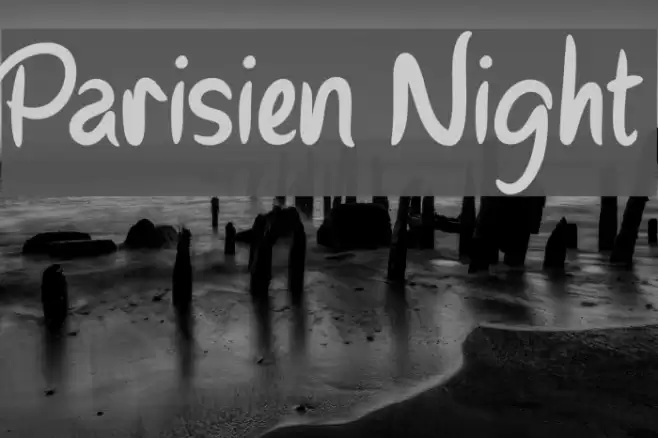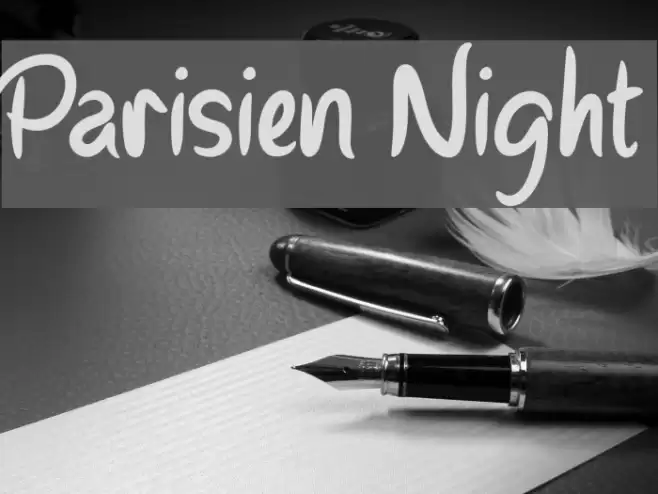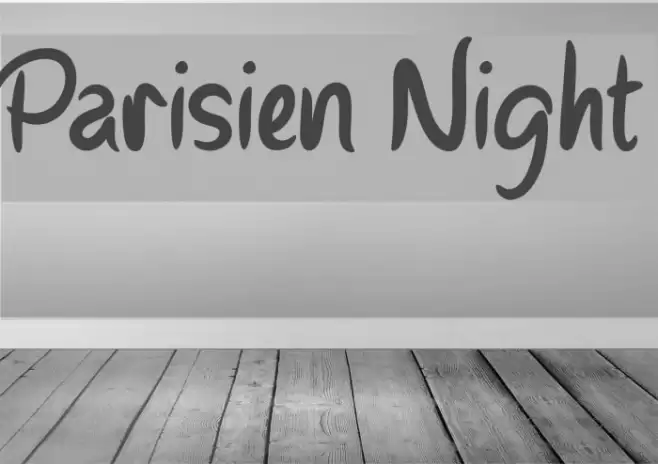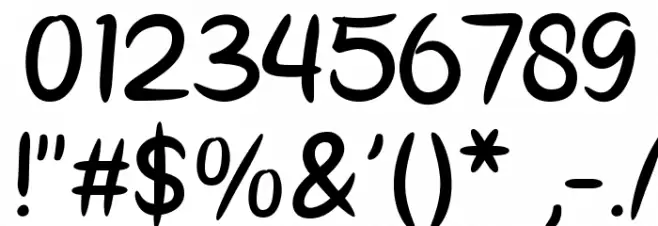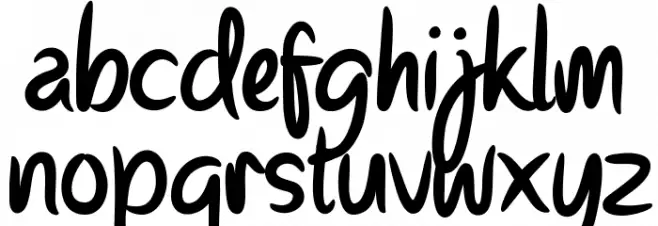
Parisien Night Font
Parisien Night Description
This font exudes a lively and dynamic personality, characterized by its bold and flowing script style. The letters are crafted with a playful yet elegant touch, featuring smooth curves and a slightly irregular baseline that adds to its charm. The uppercase letters are prominent and expressive, while the lowercase letters maintain a consistent flow, creating a harmonious balance. The numbers and special characters are equally well-designed, ensuring versatility in various applications. This font is ideal for projects that require a personal and artistic touch, making it suitable for invitations, branding, and creative designs.
A bold, flowing script font with a lively and dynamic personality from Uncategorized fonts.